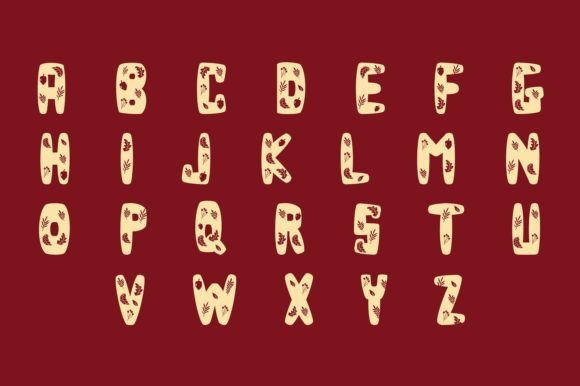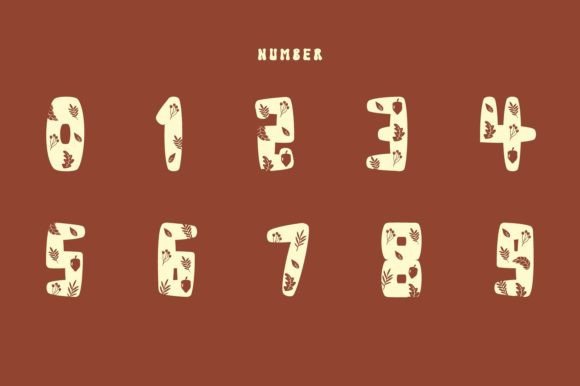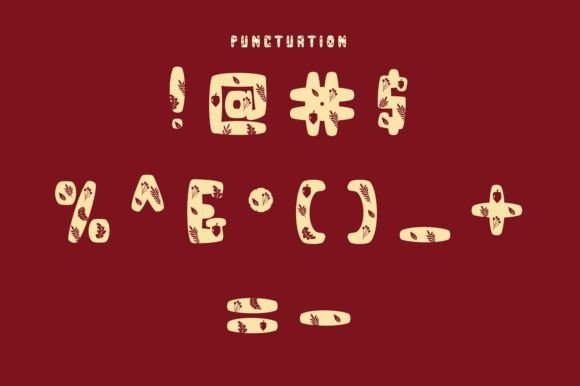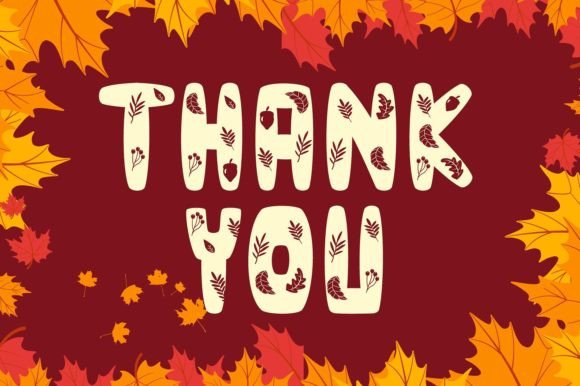
The Perfect Font for Cozy Creations: Fall Font
Have you ever been brainstorming a new project and suddenly, the perfect font pops into your mind? For many designers, this moment of inspiration can be a game-changer. It’s the spark that ignites creativity and sets the tone for a project that’s truly special. For me, that moment came when I discovered the charming Fall Font.
With its playful and authentic feel, Fall Font is the perfect choice for designers looking to add a touch of whimsy to their projects. Whether you’re working on a blog post, logo, or advertisement, Fall Font is sure to bring a smile to your audience’s faces. Its versatility makes it a valuable asset for designers, allowing them to add a personal touch to anything from greeting cards to photo albums.
Fall Font Key Features
- Size: The font family includes multiple weights, ranging from Thin (100) to Black (900), providing flexibility for various design applications.
- Unique Characteristics: Fall Font features a unique, hand-drawn style with subtle texture and organic elements, giving it a warm and inviting feel.
- Kerning and Ligatures: Includes carefully crafted kerning pairs and ligatures to ensure smooth text flow and optimal readability.
Designer Review: Fall Font
Overall, I’m fairly impressed with the Fall Font. Here are a few things that I think work well: ✨
- The font’s organic feel is a nice touch, giving it a cozy and seasonal vibe.
- The weight and style options allow for a good range of usage, from titles to body text.
- The font is quite versatile and can be used in a variety of designs, from invitations to websites.
However, there are a few limitations that I think are worth noting: ⚠️
- The font may be a bit too ornate for some designs, particularly those that require a more minimalist approach.
- The characters may not be as legible at smaller font sizes, which could be a concern for designs that require a lot of text.
- The font may not be as suitable for digital displays, particularly those with lower pixel densities.
Overall, I think the Fall Font is a solid choice for designs that require a seasonal or organic feel. While it may have some limitations, I think it’s a great addition to any designer’s toolkit.
Getting the Most Out of Fall Font
To get the most out of Fall Font, experiment with different font sizes, colors, and styles to create a cohesive and visually appealing design. You can also use Fall Font in combination with other design elements, such as graphics and images, to create a unique and eye-catching design.
Fall Font is commonly used in designs related to autumn, such as fall-themed invitations, posters, and social media graphics. It can also be used in designs related to harvest, Thanksgiving, and Halloween.